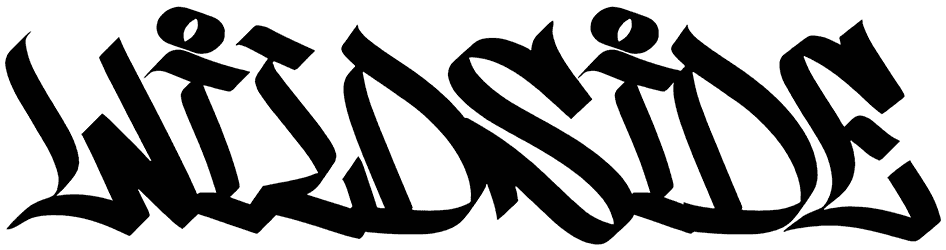
Wildside Font
Thanks to the dripping style of Wildside and its spicy design, you won’t have any trouble engaging the readers. The bold characters are limited only to capitals, but its chaotic theme perfectly makes up for the missing lowercase.
Basically, anywhere you want to impress people with the urban feel of your typography, this graffiti font will be more than enough. Use it as club posters, street photography Instagram page logos, or anything else you want to sound fun and trendy.